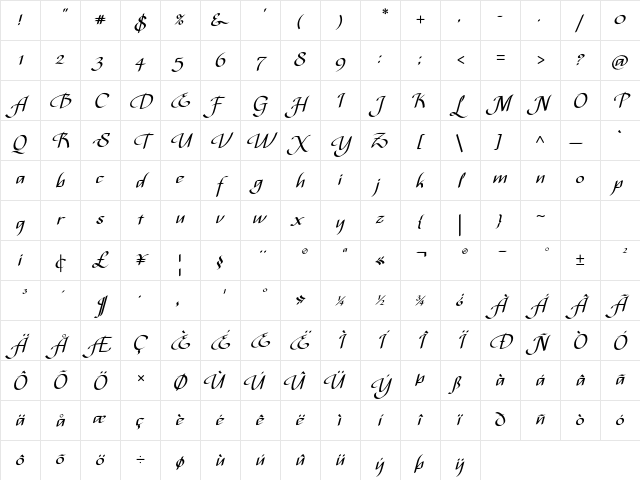
Complete Bispo Original Regular glyph index. Displaying only characters natively supported by Bispo Original Regular font.
Bispo Original is a composed and adaptable typeface that performs quietly and consistently across a wide range of design contexts.